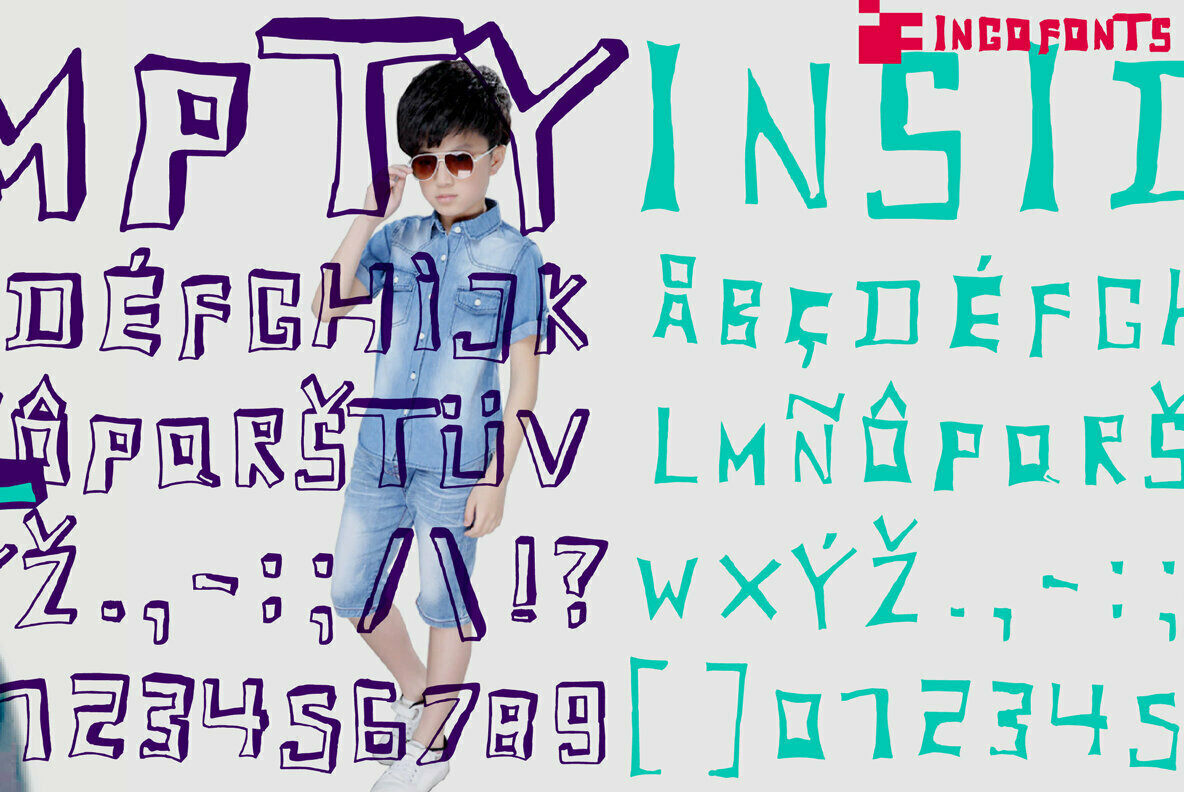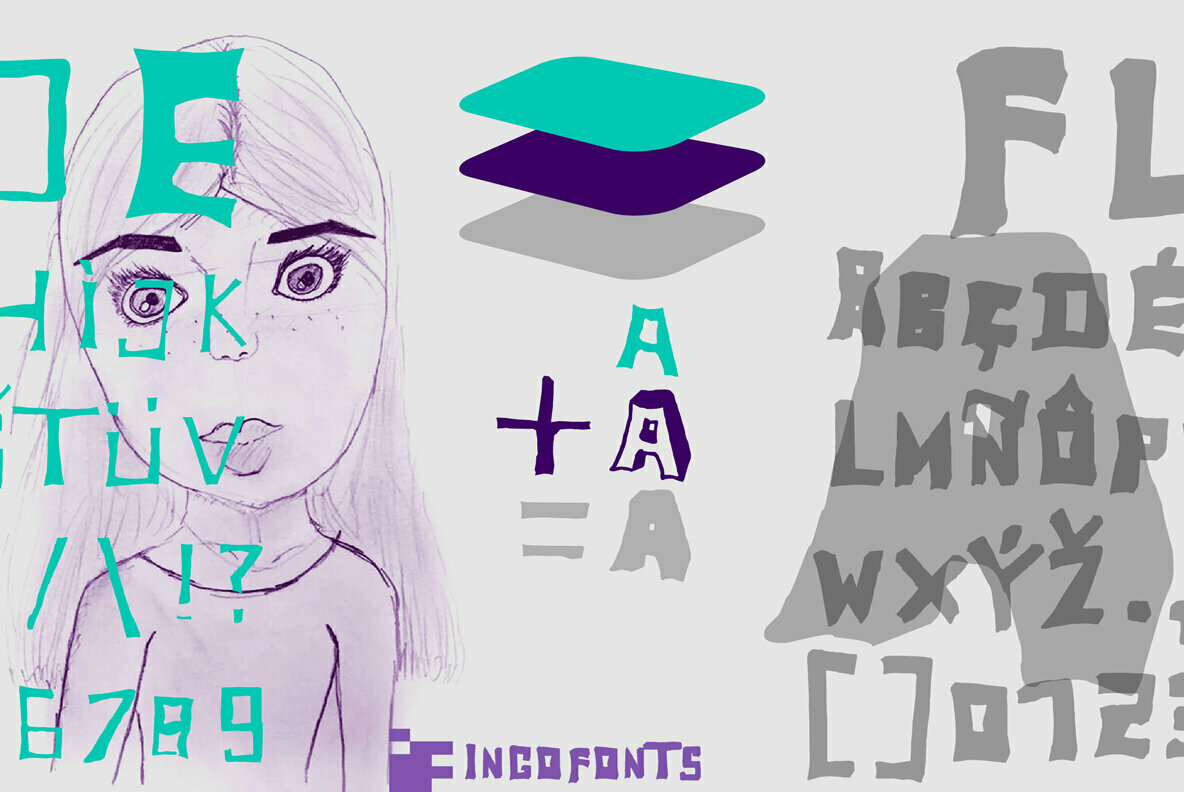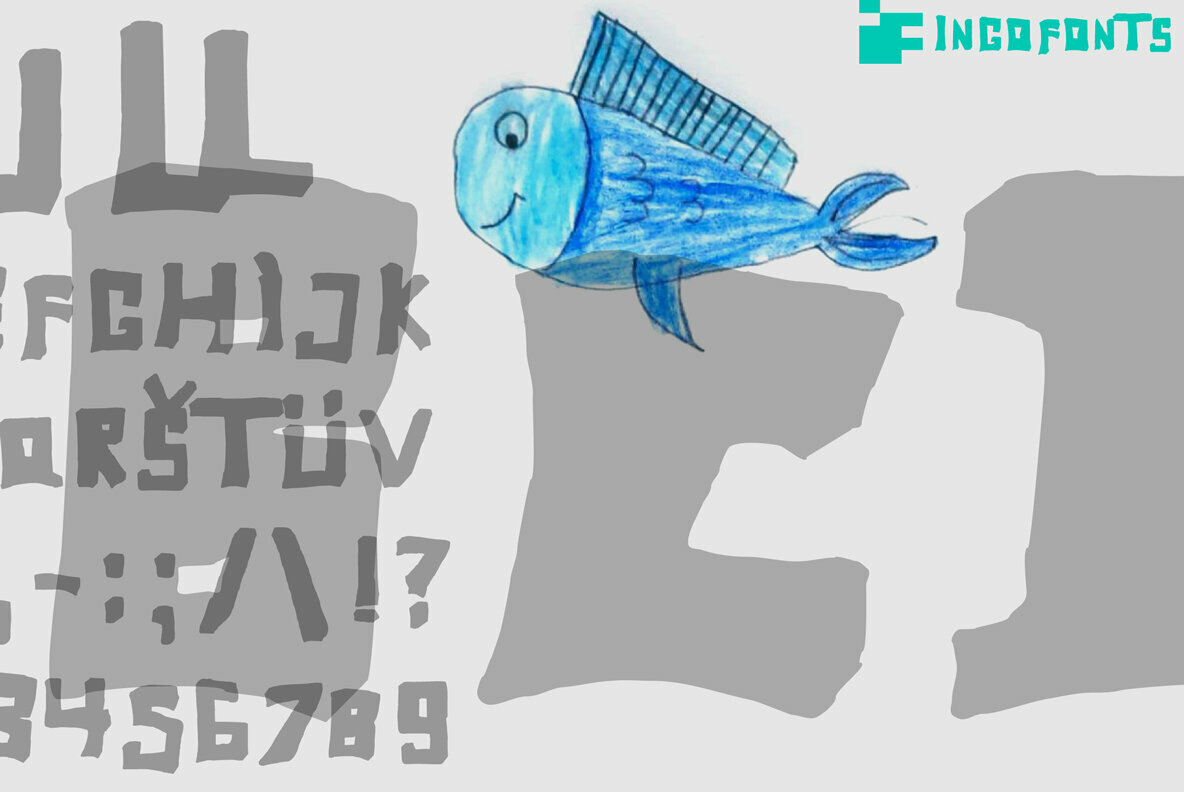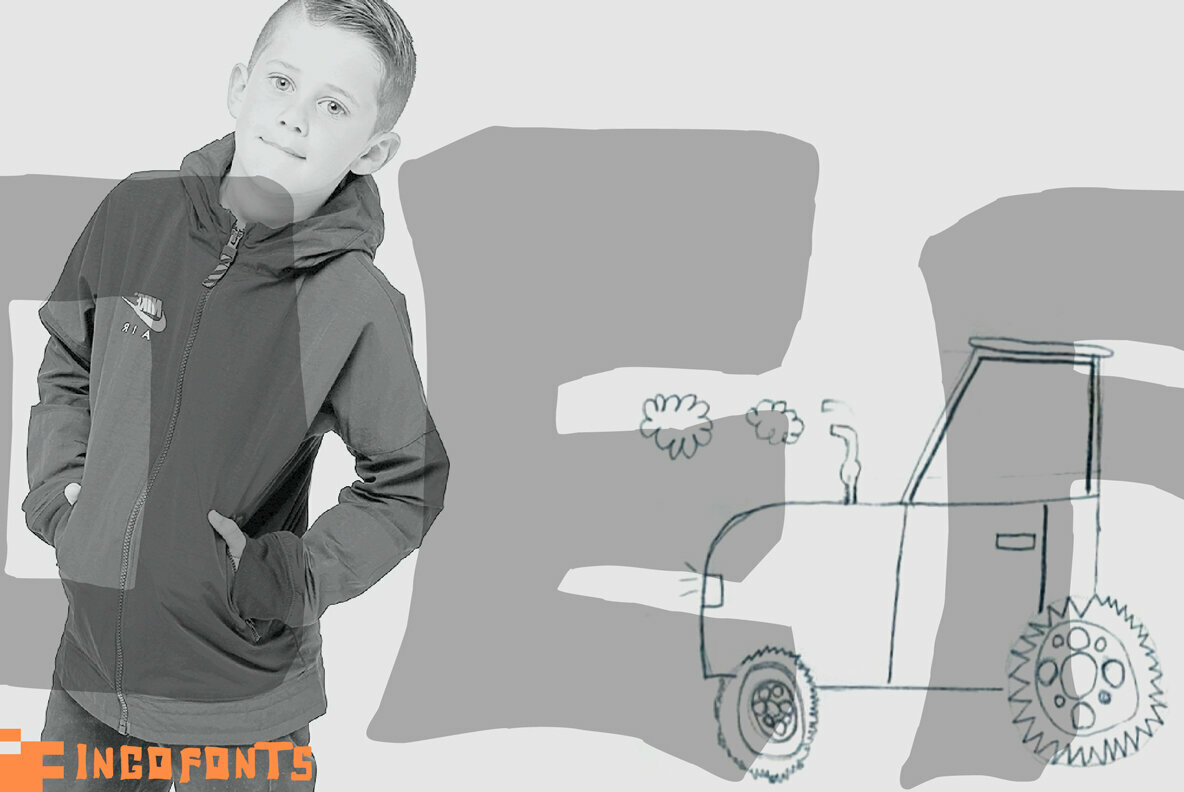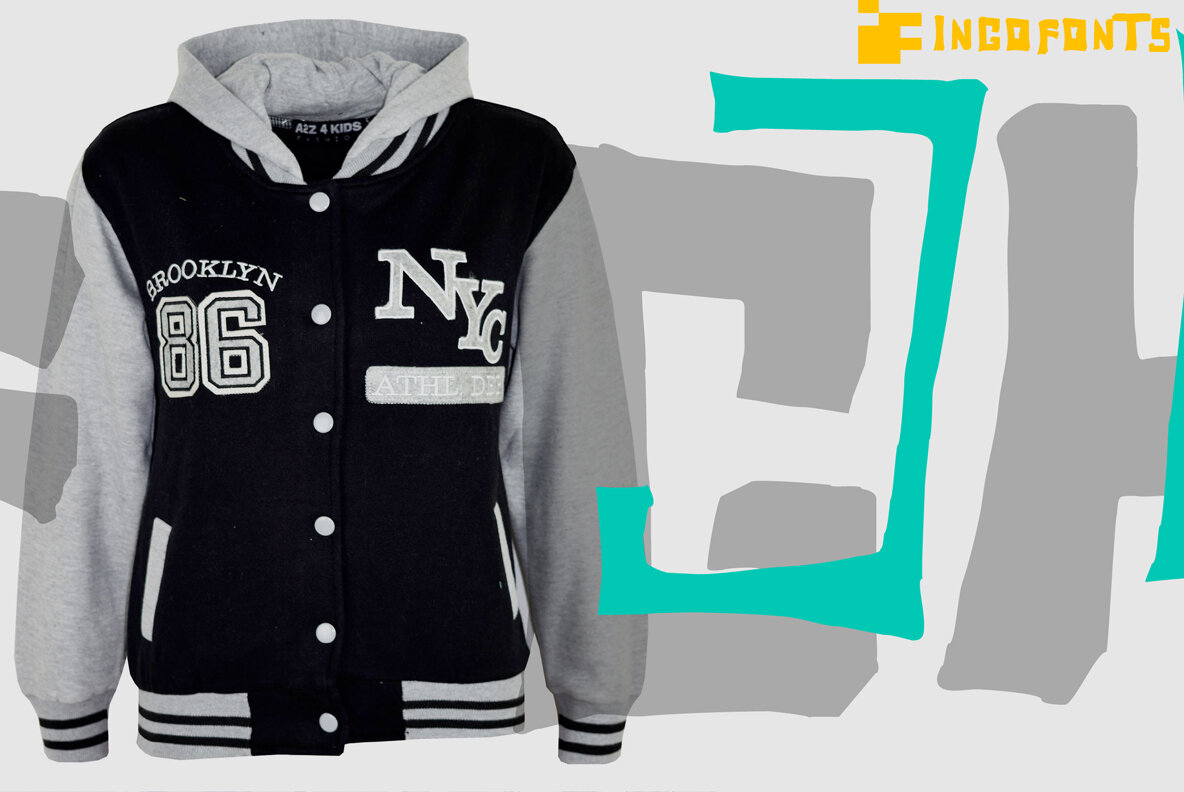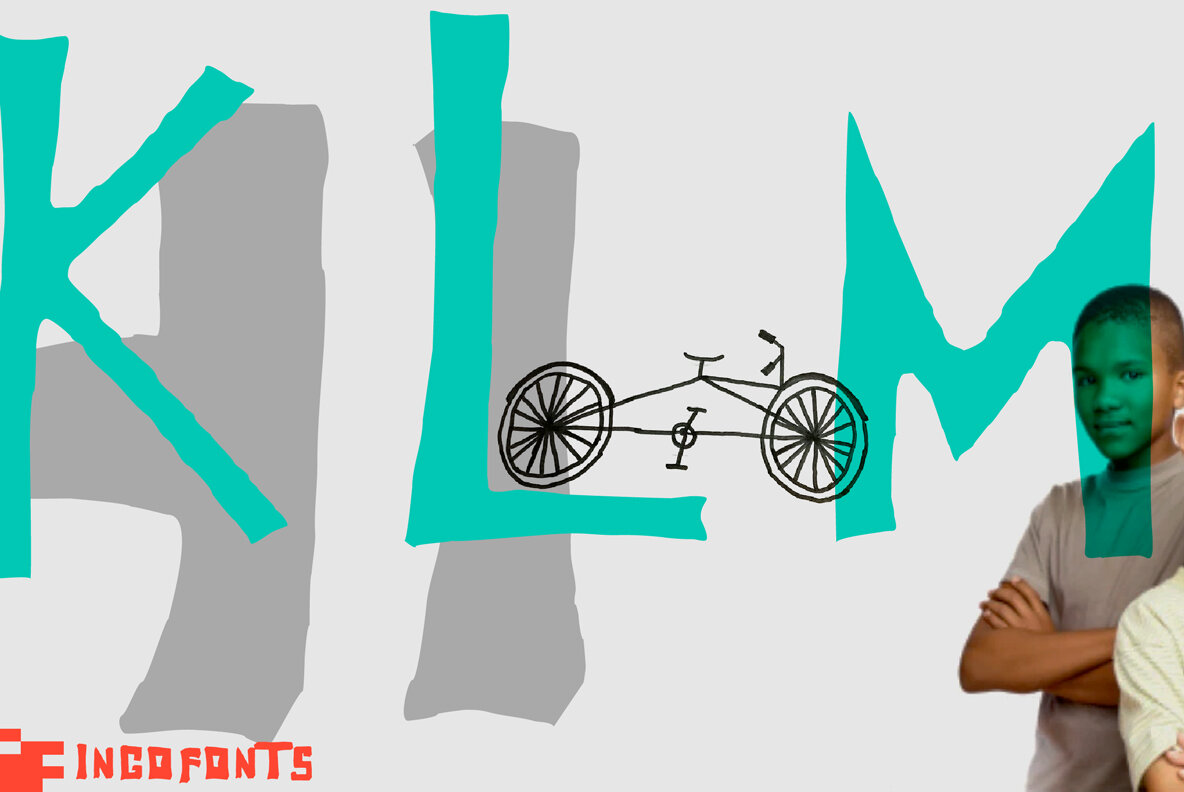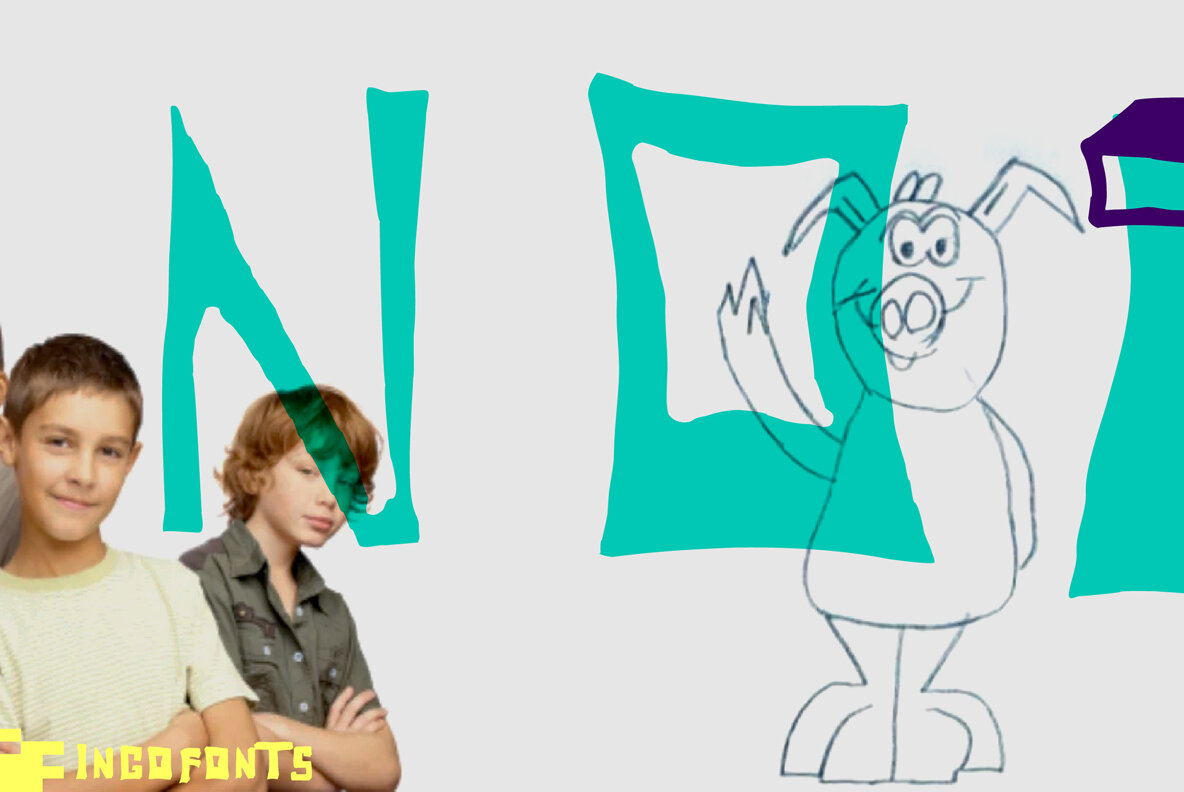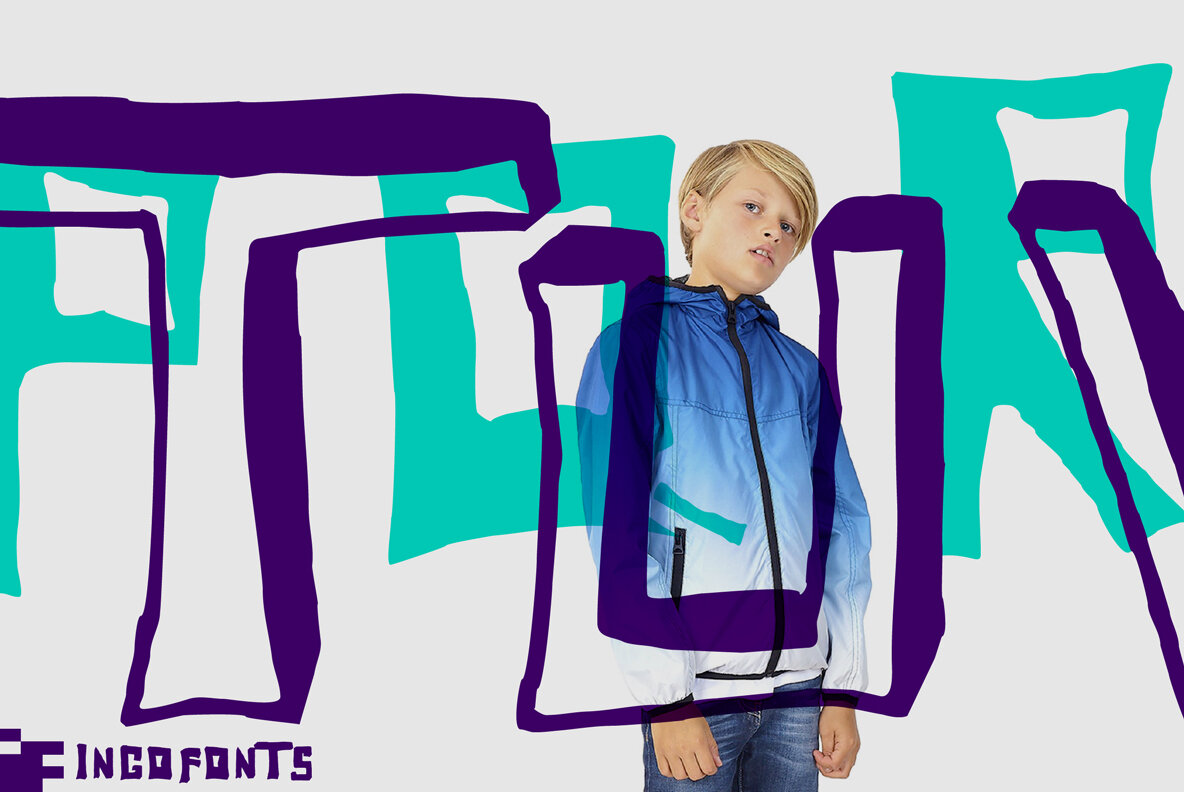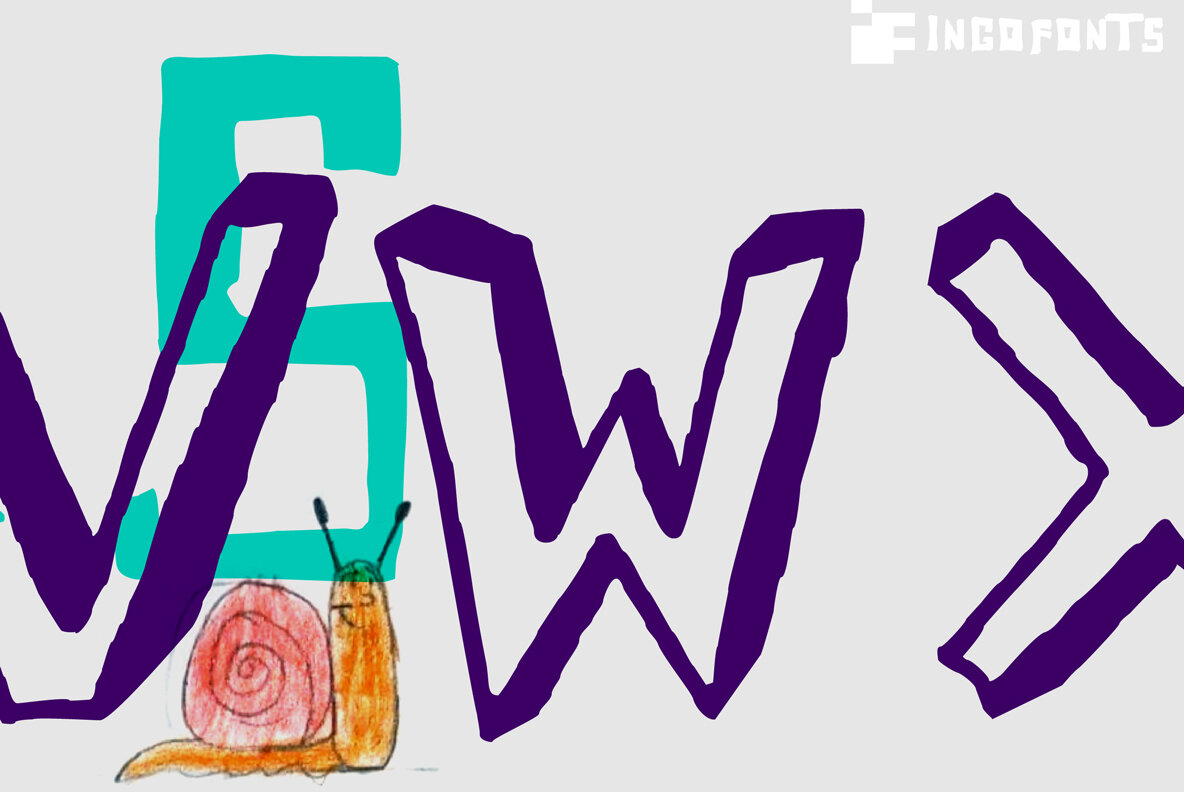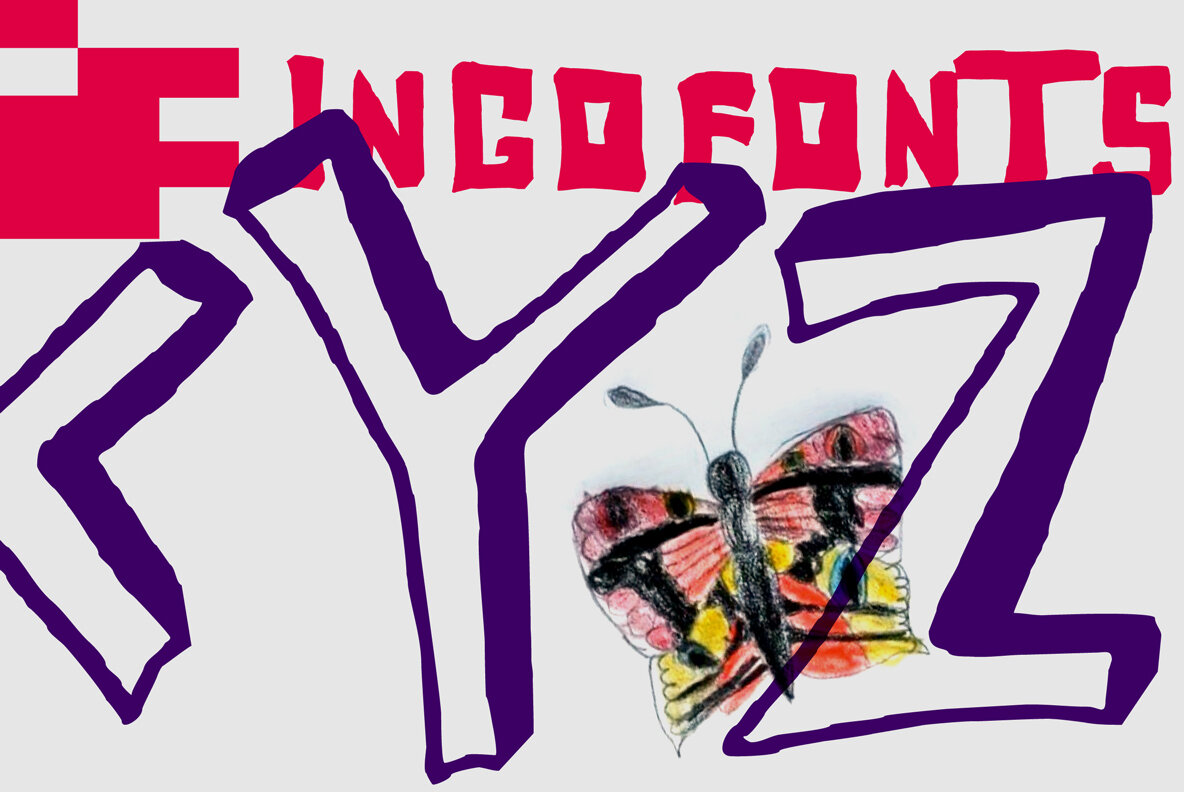
Toby Font
A playful handwriting of a child.
Twelve-year old Tobias Düsel designed the characters of this font in 2002 during his family’s furlough in the USA.
He drew the alphabet freehand in pencil on a piece of stationery, and clearly had examples of the well-known college and military fonts in mind. The characters in their basic form are geometrically thought out, as well as the construction of the shadows.
But remarkably, while drawing, Tobias Düsel did not reach for the obvious aid of a ruler. In fact, the strokes of the letters are not linear, rather are recognizably well-balanced with declining and increasing straights as can be seen in polished classical fonts. Originally this font consists only of upper case letters — all other characters (punctuation marks, figures and similar) have been modified from the components of the capital letters.
Complementary to the original Outline-Shadow-Version TobyFont Empty, the variations TobyFont Inside and TobyFont Full are also available. ”Empty“ is, so to speak, the frame of the typeface as “Inside” is the filling, and “Full” is the sum of both.
All three versions have the exact same body size so that they can be placed over one another congruently. In this way the effect of a font in two or three colors can be attained.
TobyFont is excellently suitable for designing “picturesque” or “hand-carved” contents; large weights are especially charming and striking.